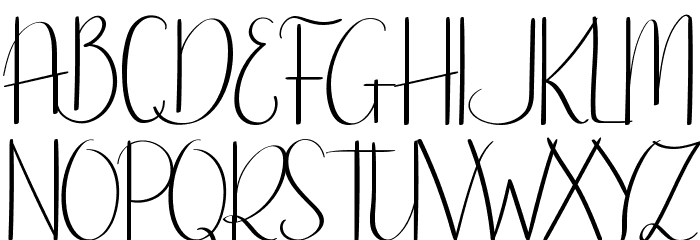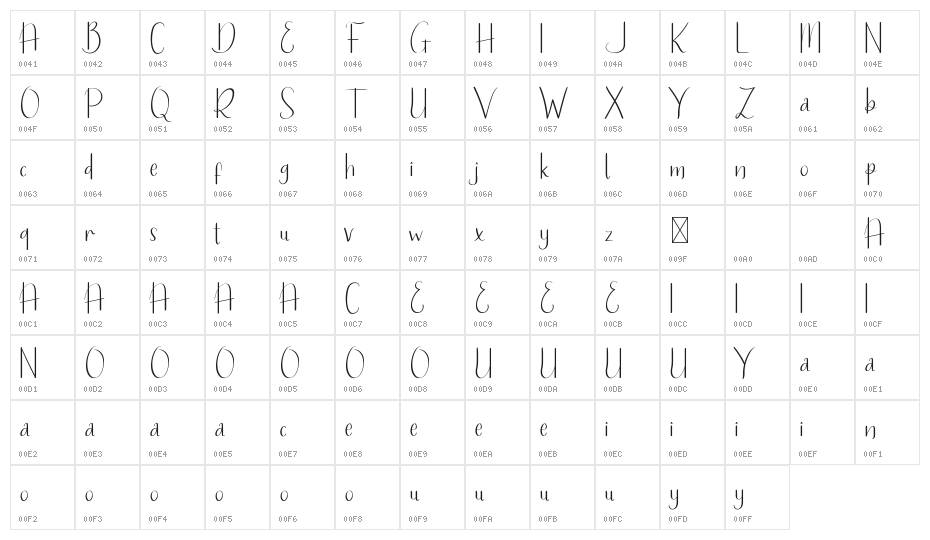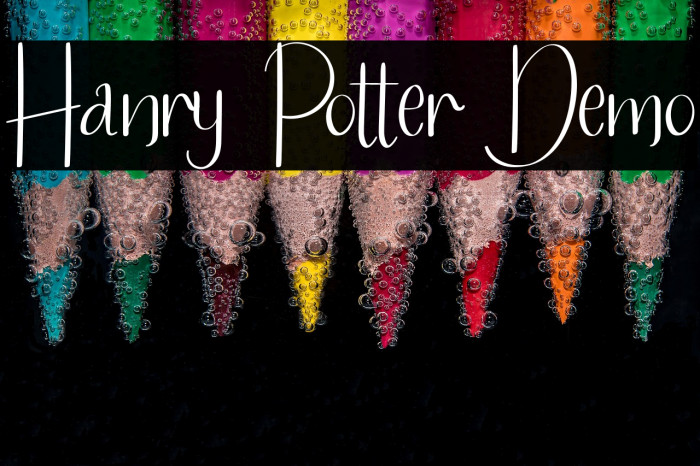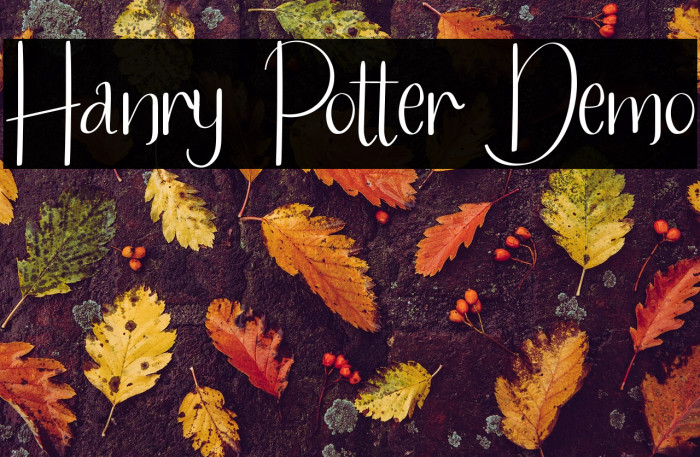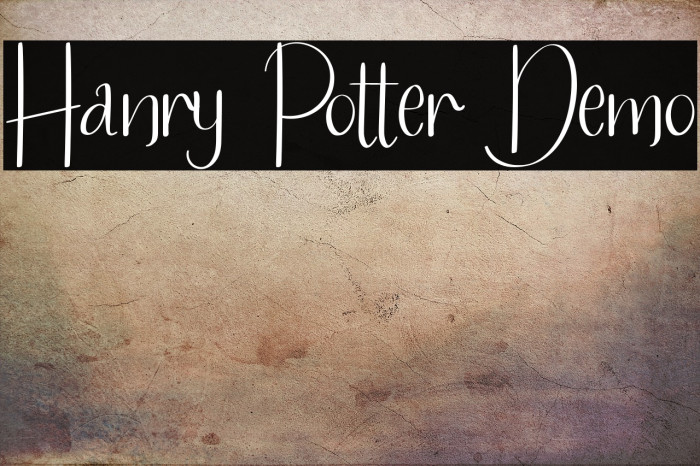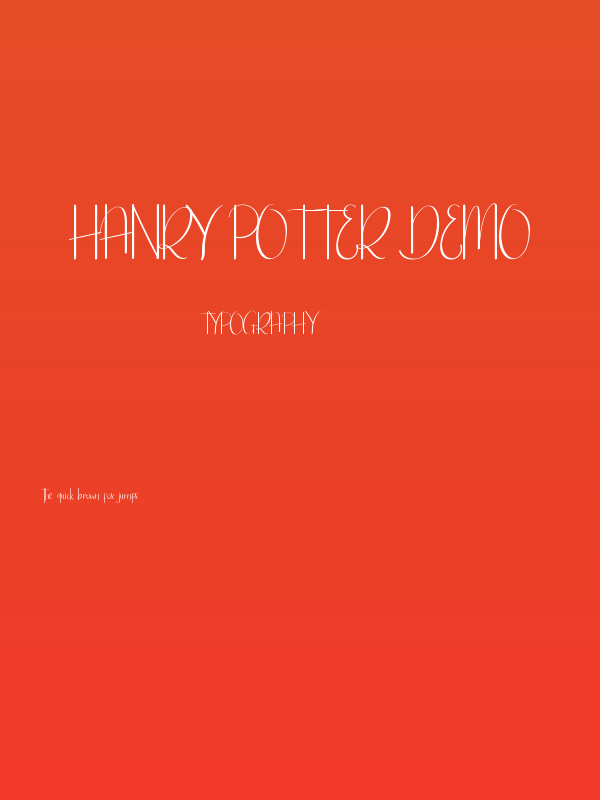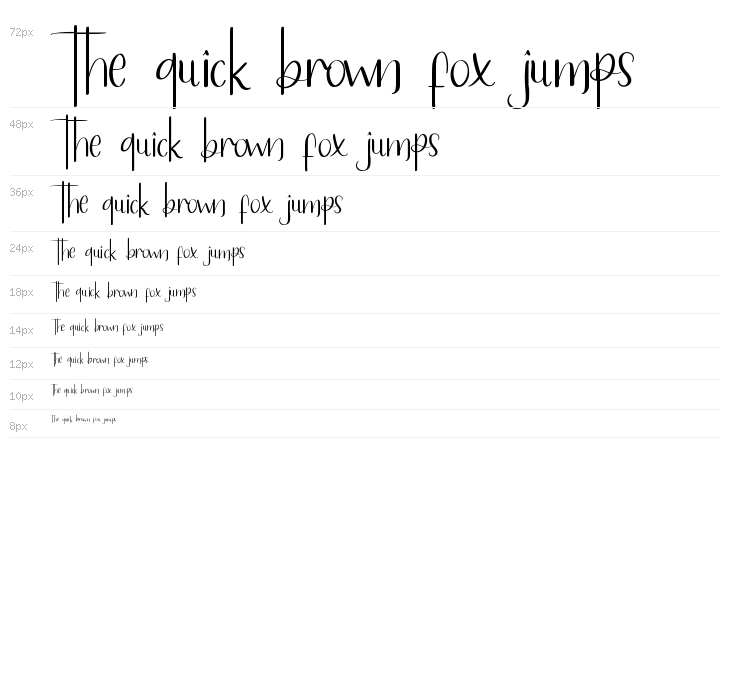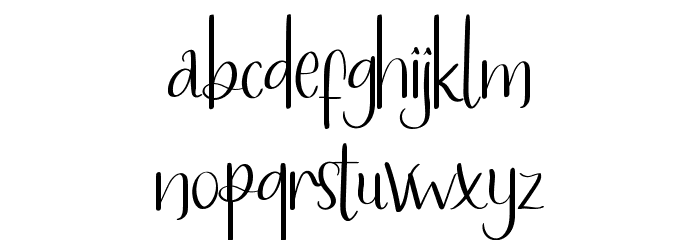
Hanry Potter Demo Font
Hanry Potter Demo Description
This font features a whimsical and elegant design with a handwritten style that incorporates both thin and slightly thicker strokes, creating a dynamic and flowing appearance. The uppercase letters are tall and slender, with unique flourishes that add a touch of sophistication. The lowercase letters maintain a consistent style, complementing the uppercase with their own subtle curves and loops. The overall look is both playful and refined, making it suitable for creative and artistic projects. The font's distinct character is enhanced by its decorative elements, which give it a magical and enchanting feel.
| Proposed Projects | Ideal for invitations, greeting cards, book covers, and branding that requires a magical or artistic touch. |